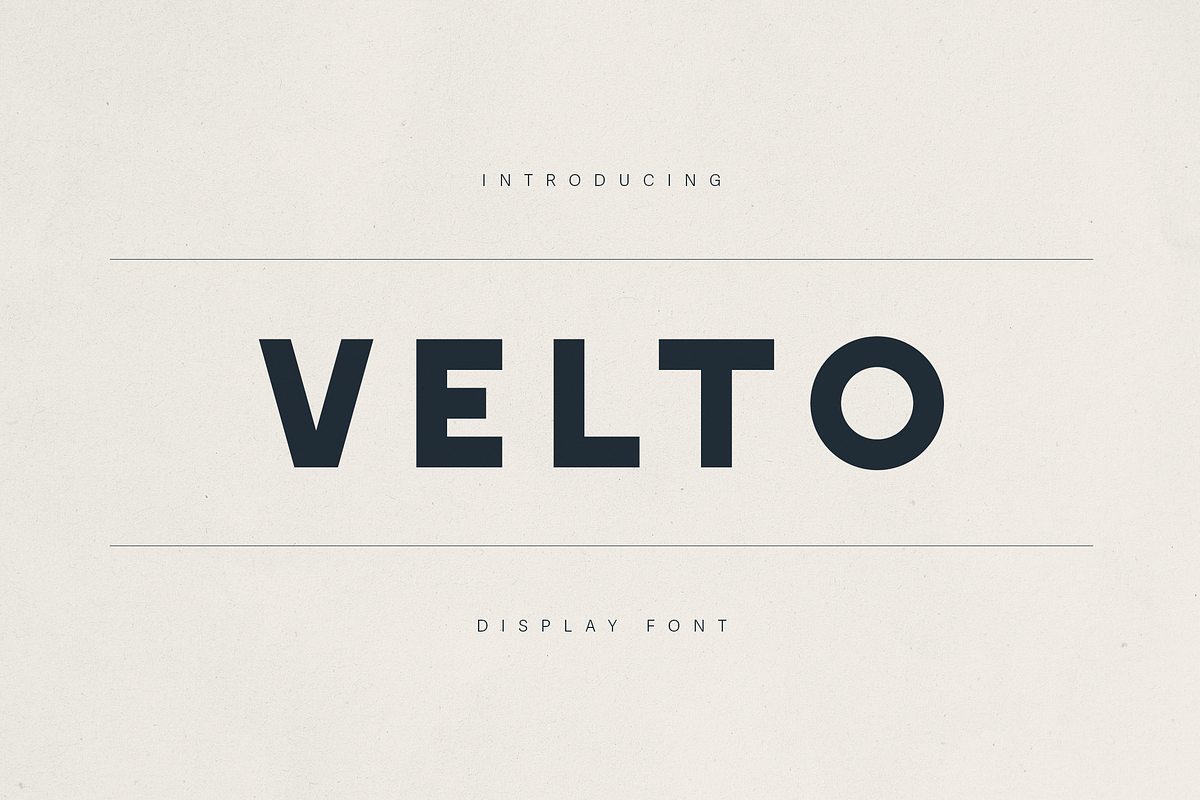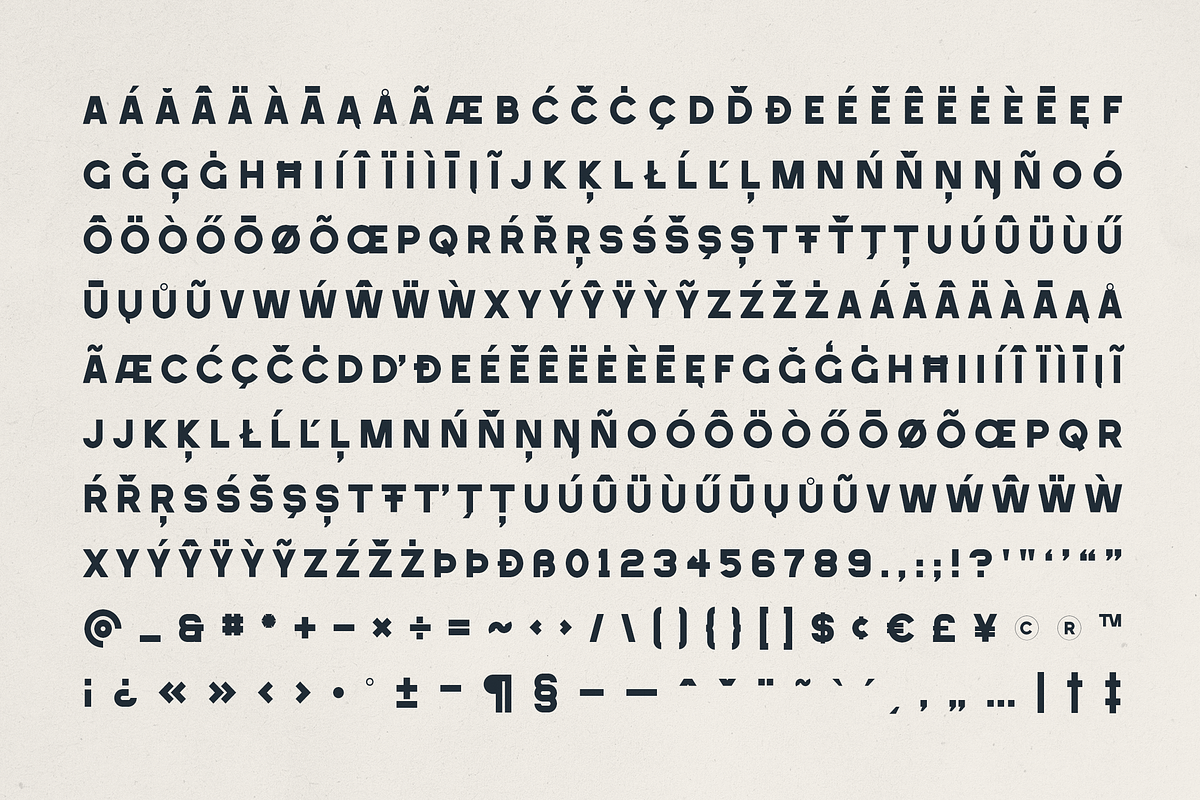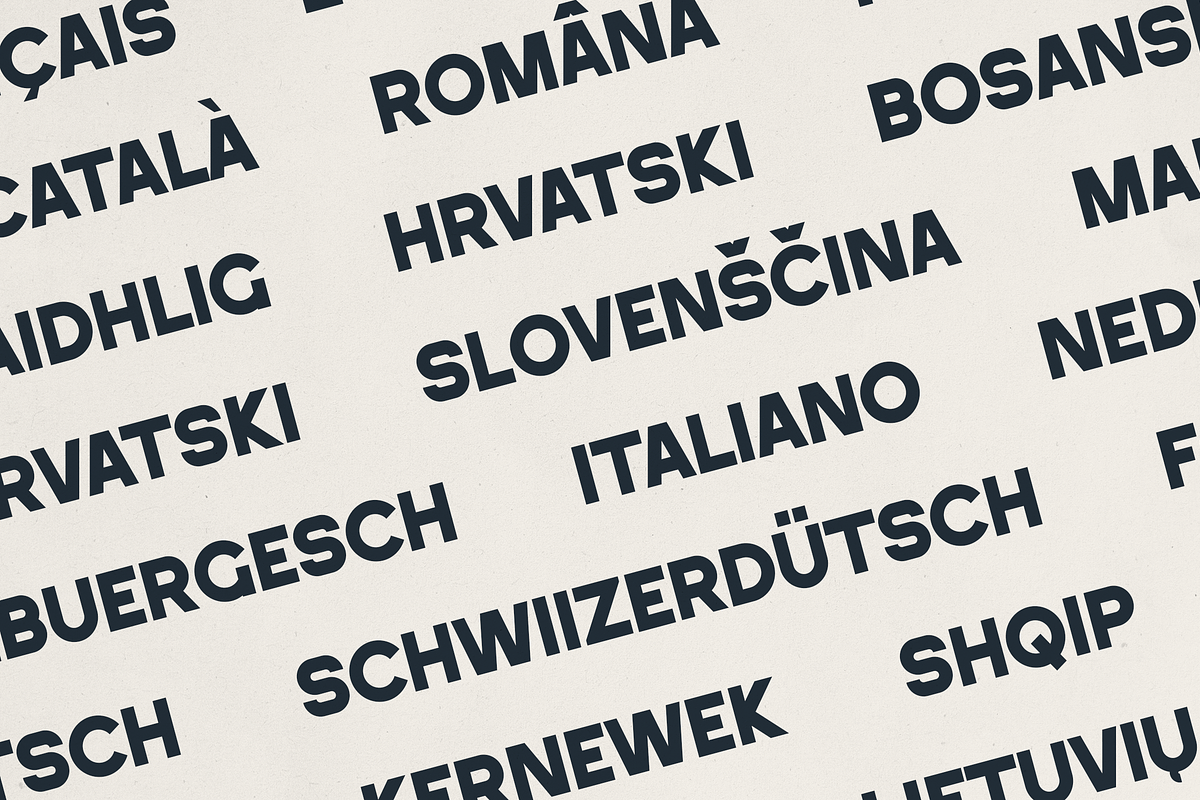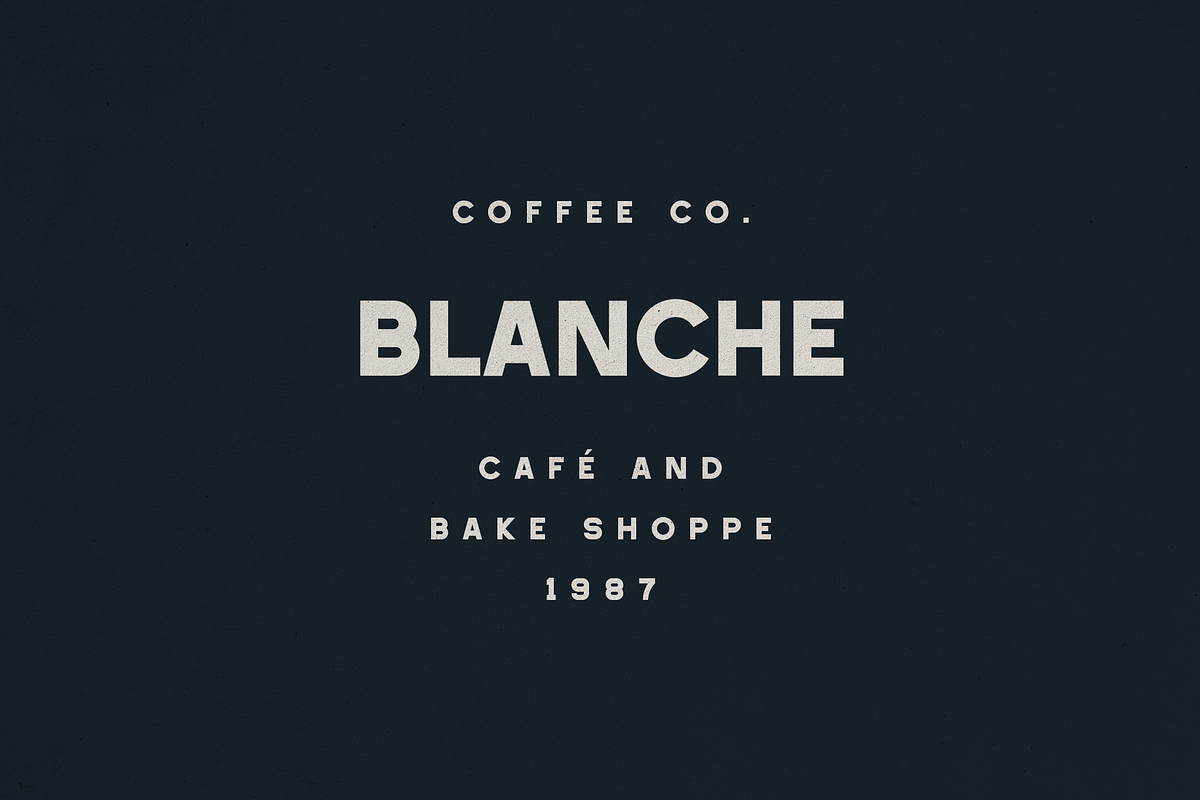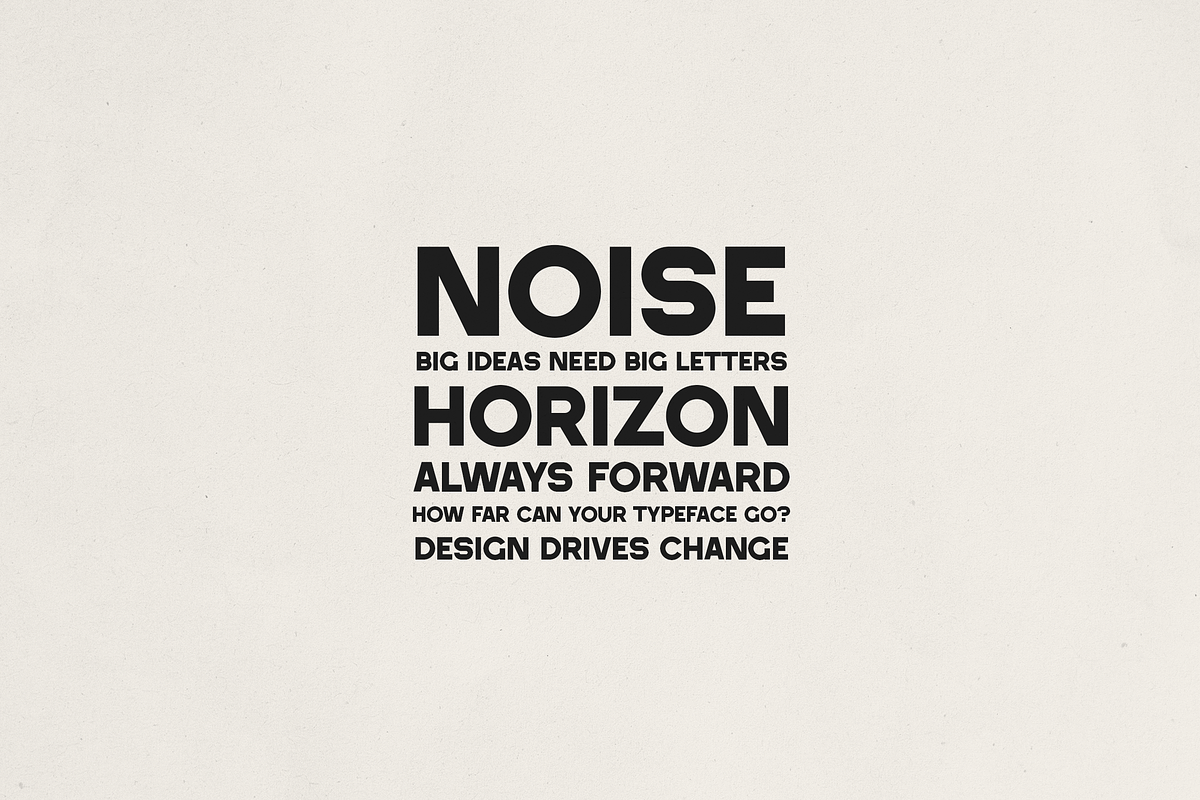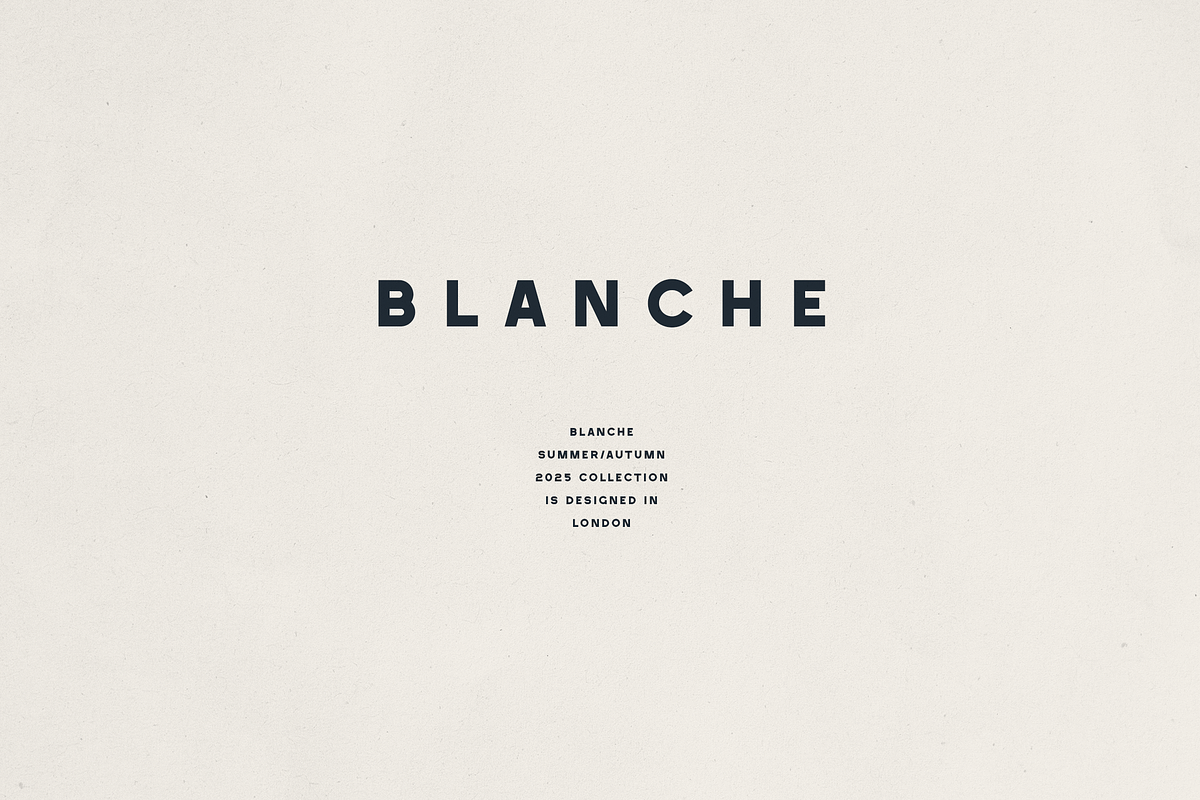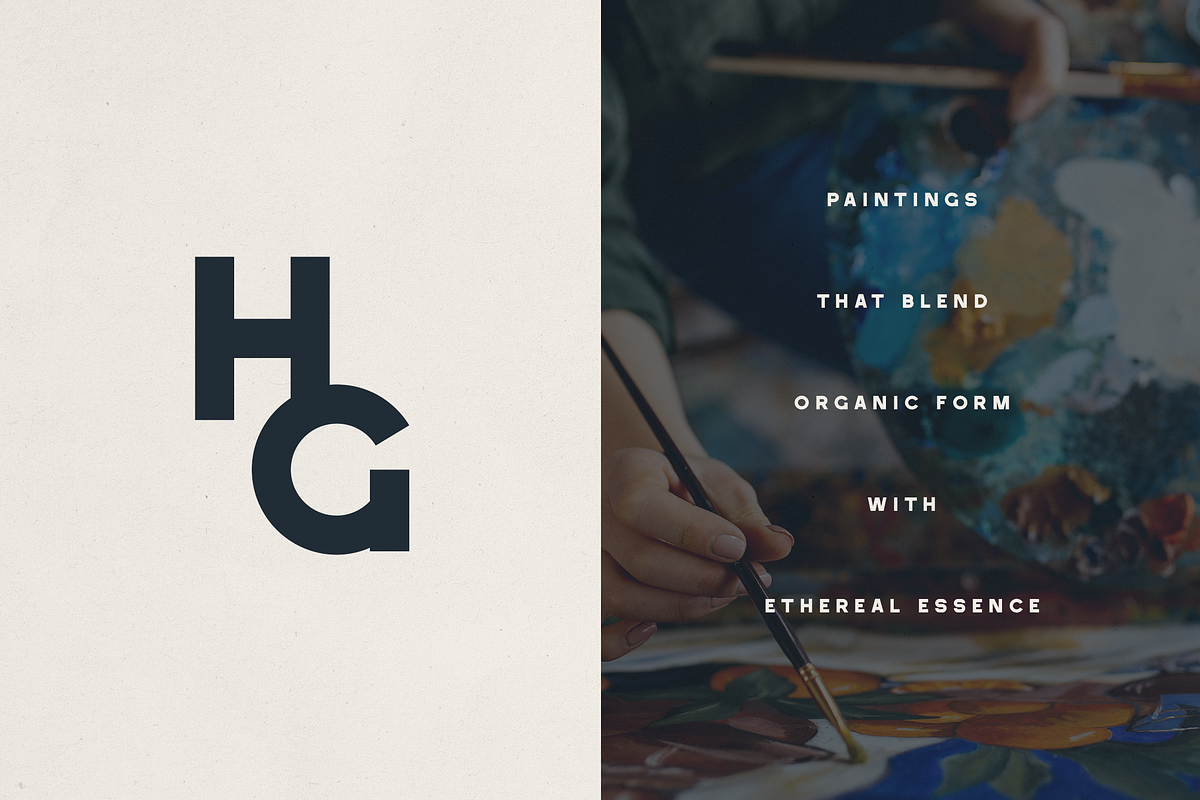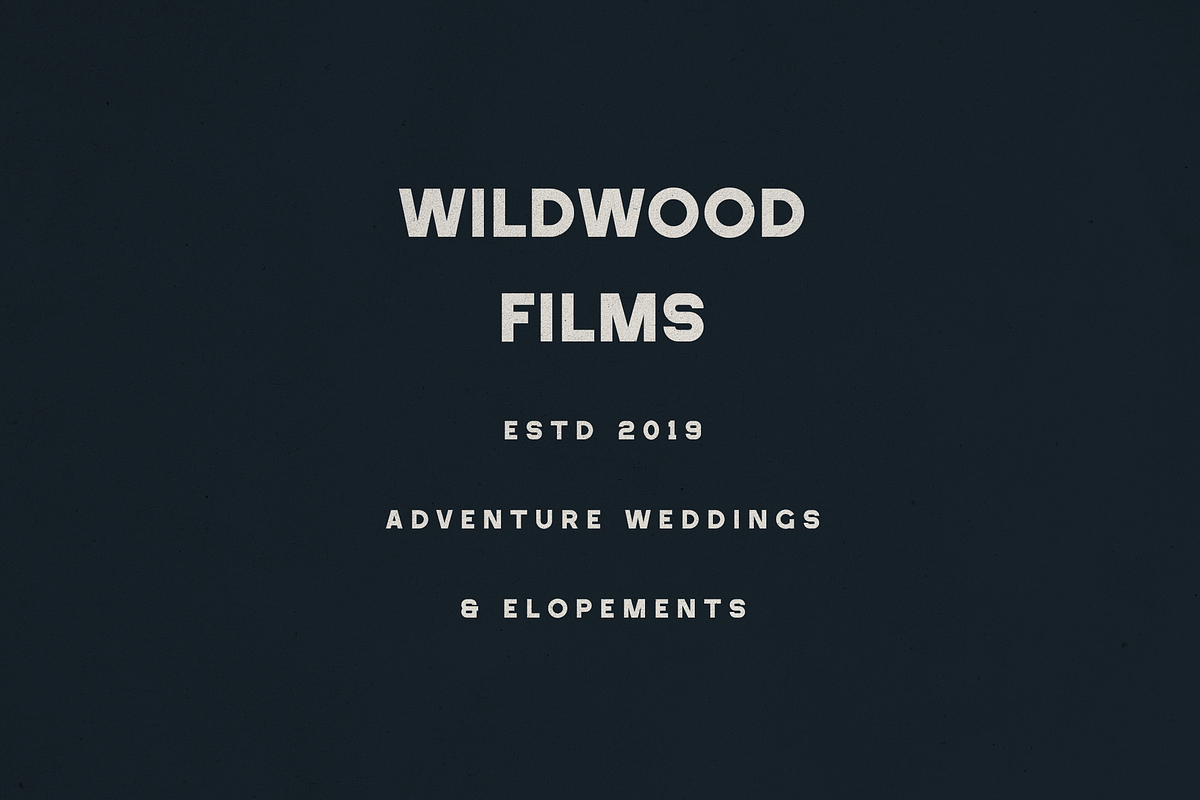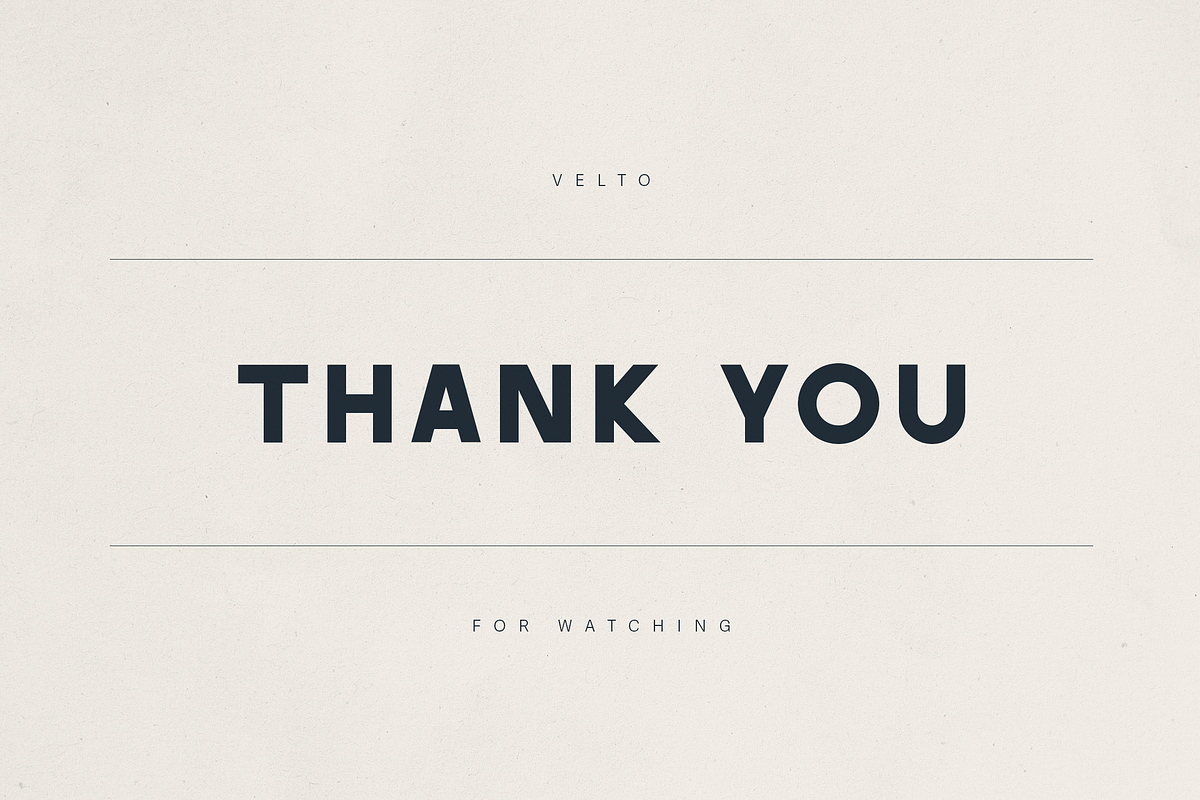
Velto – Modern Bold Sans Serif Font
Velto – Modern Bold Display Sans Serif Typeface
Introducing Velto, a modern sans serif display font designed for bold branding, clean editorial layouts, and impactful visual communication. With sharp geometric shapes, balanced proportions, and confident character design, Velto delivers a strong contemporary aesthetic perfect for logos, headlines, posters, fashion labels, packaging, and social media graphics.
Whether you're creating a minimalist identity, cinematic titles, or a trendy apparel label, Velto adapts seamlessly.
- Bold, clean sans serif construction
- All caps + punctuation + multilingual support
- Great for editorial, branding, web, fashion, packaging
- Perfectly suited for logos, headlines, and creative content
Bring clarity, strength, and sophistication to your next project with Velto—the ultimate modern display font for forward-thinking creators.